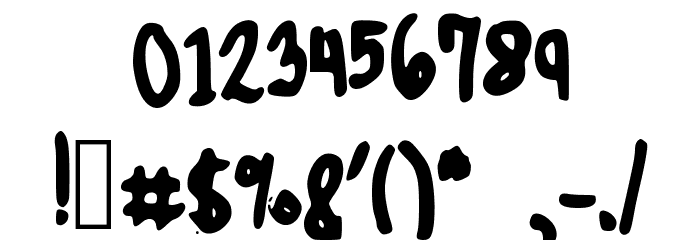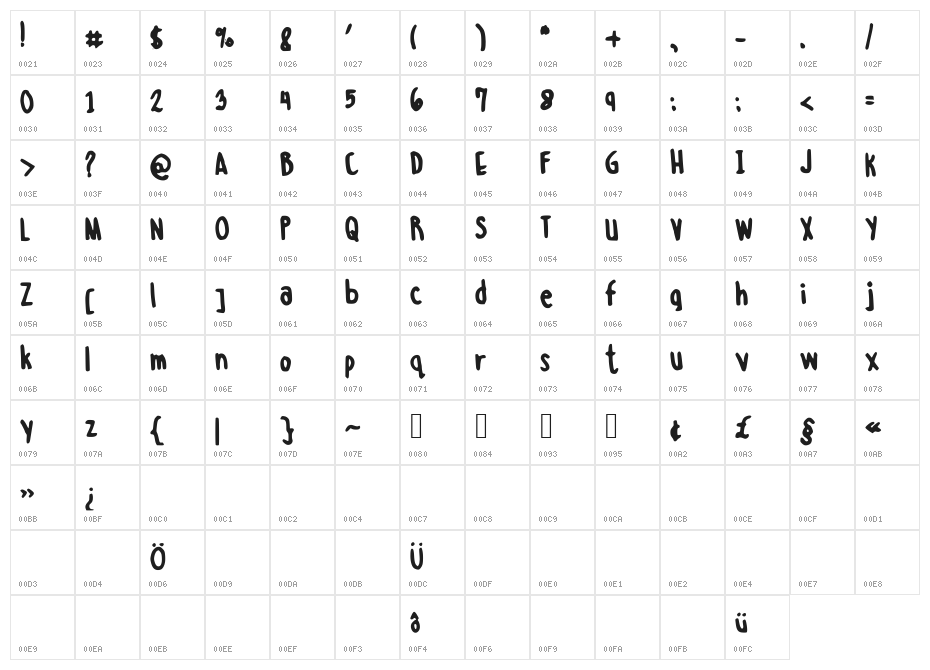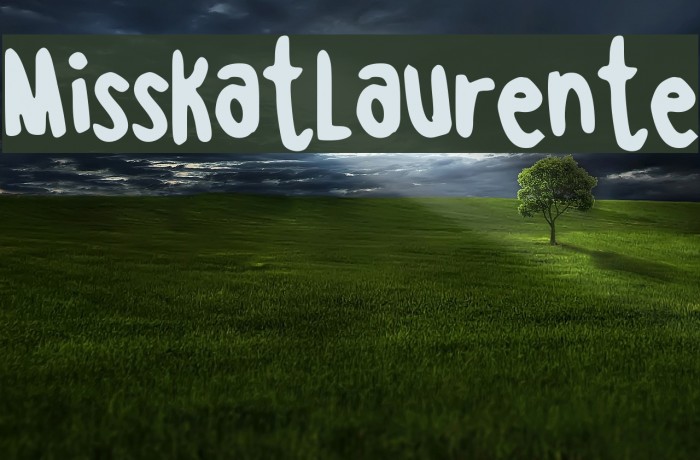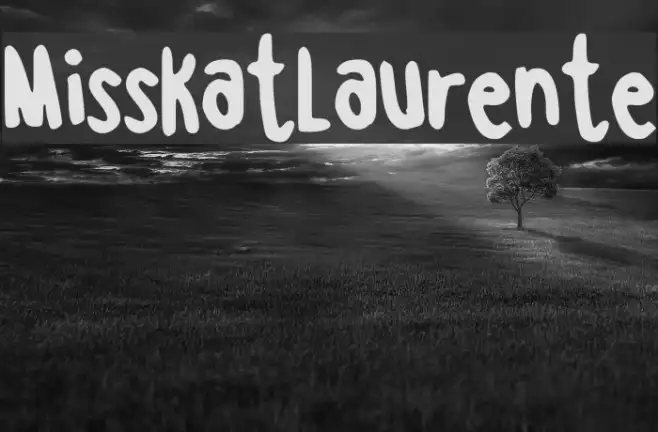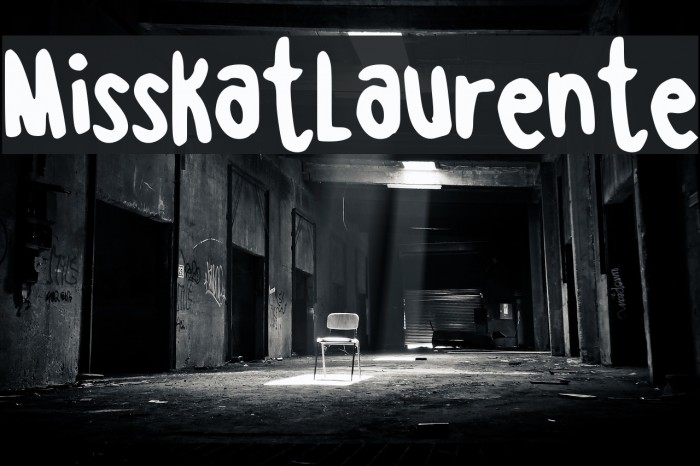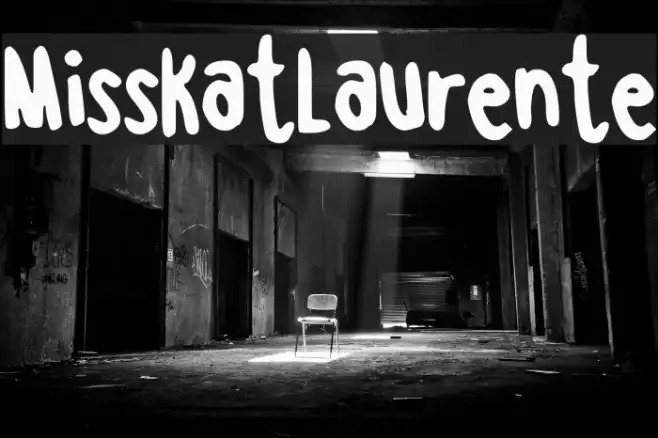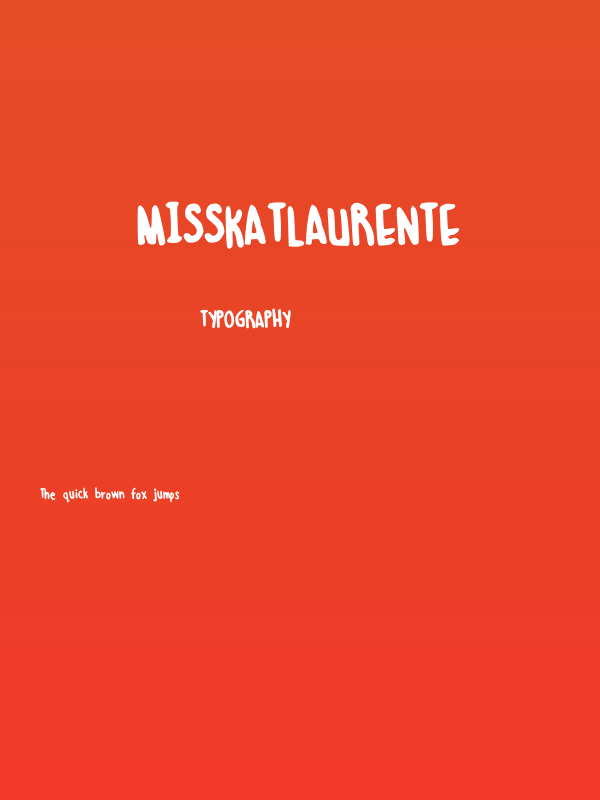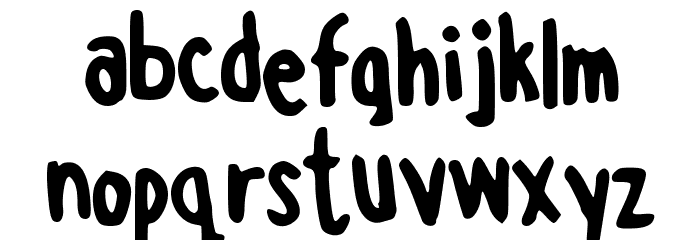
MissKatLaurente Font
MissKatLaurente Description
This playful and bold font features a handwritten style with a casual and informal appearance. The letters are rounded and slightly irregular, giving it a friendly and approachable feel. The uppercase and lowercase characters maintain a consistent style, with a noticeable thickness that adds to its boldness. The numbers and special characters follow the same design, ensuring uniformity across all elements. This font is perfect for projects that require a touch of whimsy and creativity, such as children's books, playful branding, or casual invitations.